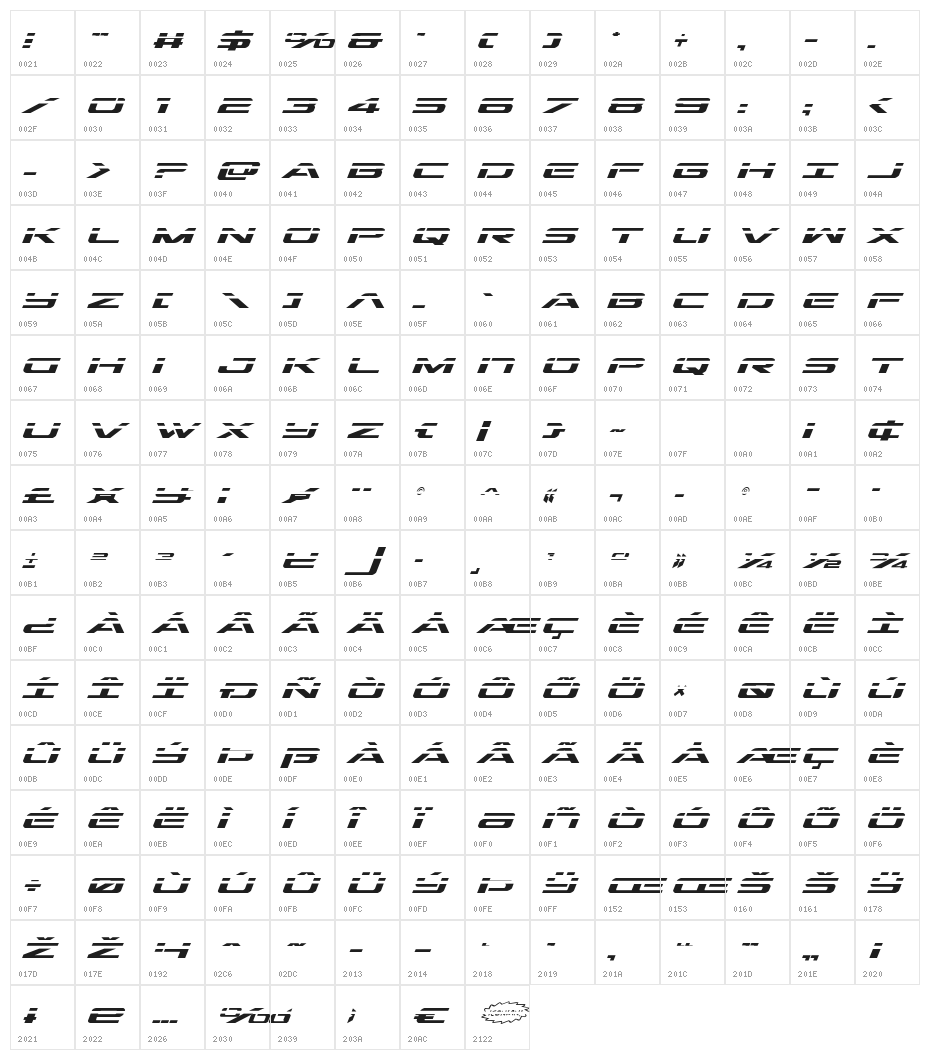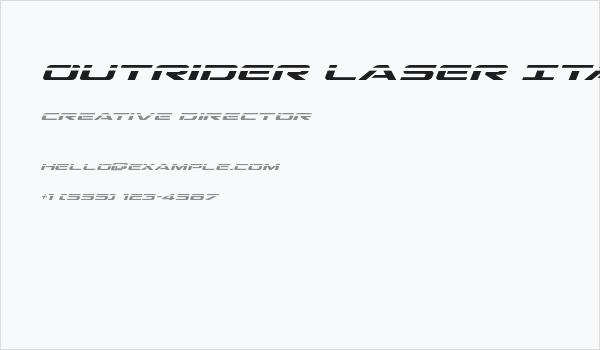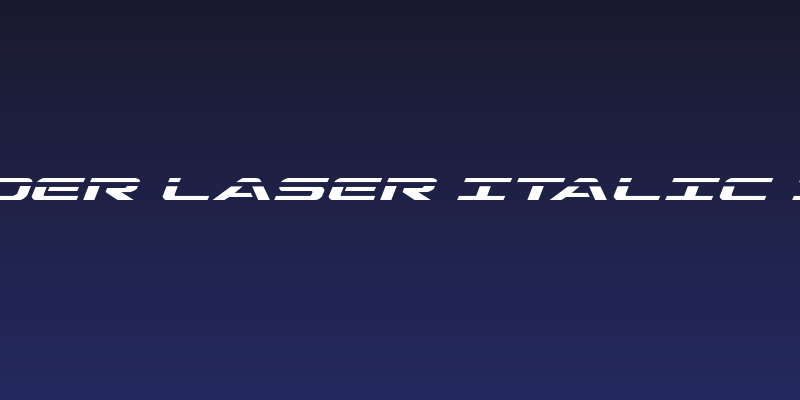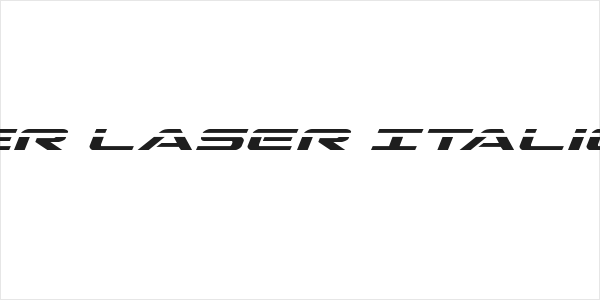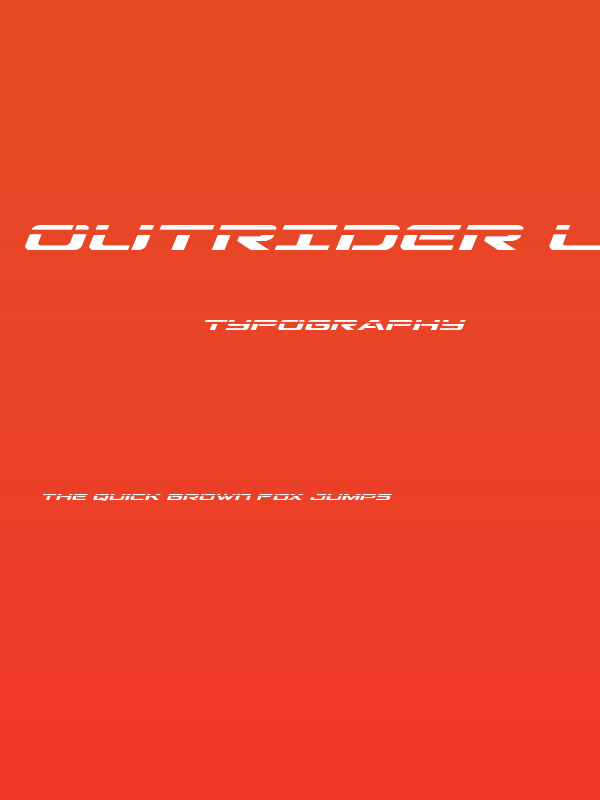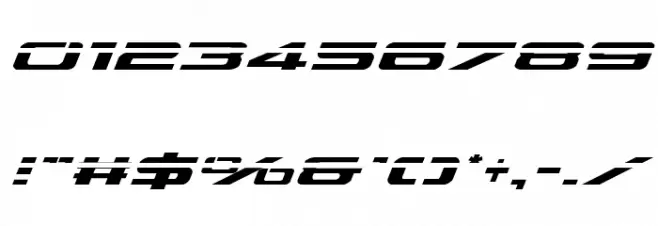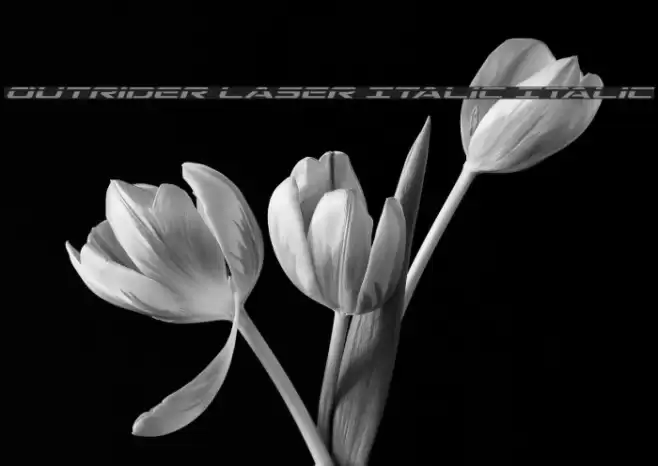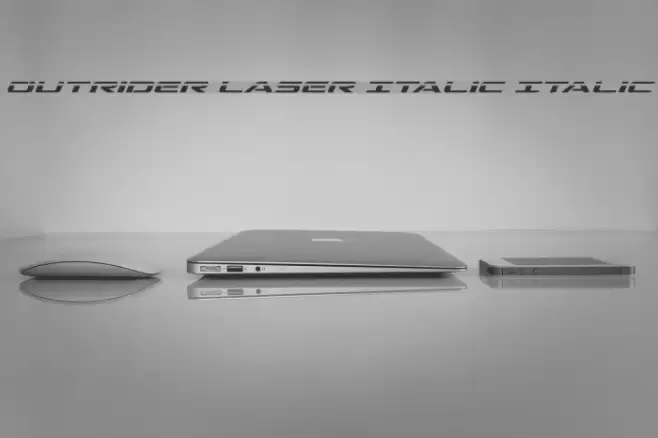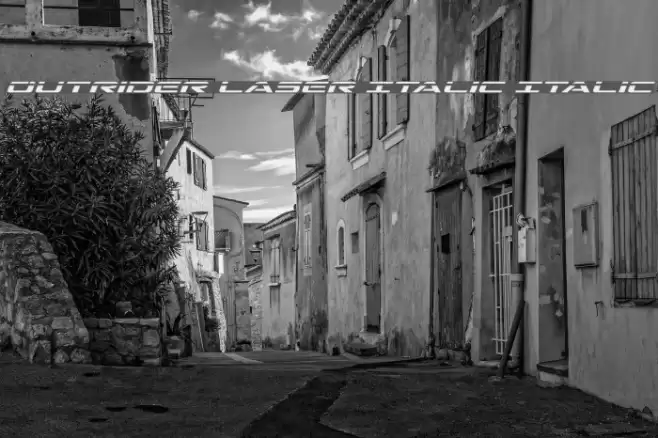
Outrider Laser Italic Italic Font
Outrider Laser Italic Italic Description
This font exhibits a futuristic and dynamic style, characterized by its sharp angles and streamlined forms. The italic slant adds a sense of motion and speed, making it ideal for projects that require a modern and energetic look. The uppercase and lowercase letters maintain a consistent design, with a sleek and aerodynamic appearance. The numerals and special characters follow the same design principles, ensuring uniformity across all glyphs. The font's boldness and distinct geometric shapes make it stand out, suitable for attention-grabbing headlines or branding materials.
| Proposed Projects | Ideal for sci-fi themed designs, video game titles, technology branding, and sports event posters. |